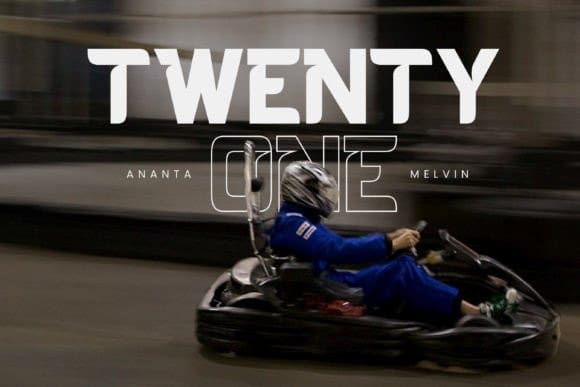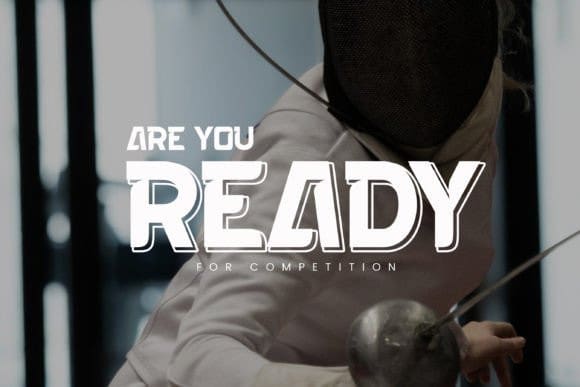
Dark Force Font
Dark Force Font, a sports racing font designed to evoke the thrill and intensity of high-speed racing. With its bold, dynamic letterforms and powerful presence, DarkForce is perfect for racing branding, sports events, event promotions, merchandise, and more, ensuring your designs accelerate to the front of the pack.